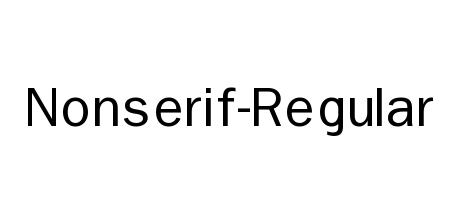
Nonserif-Regular
Category Sans-serif
Nonserif-Regular: A clean, crisp font, like a breath of fresh air. Its simple elegance speaks volumes without shouting. Perfectly versatile, it''s equally at home in a minimalist logo or a sprawling novel. Modern yet timeless, it offers understated sophistication for any project. Its neutrality allows the content to shine.